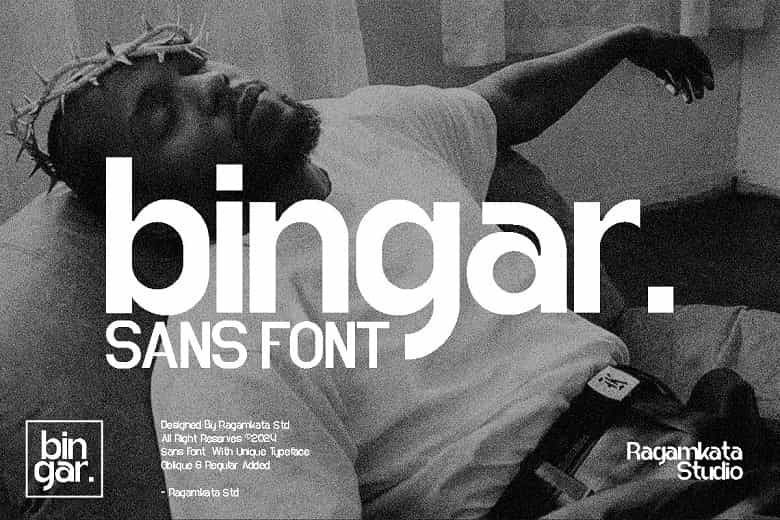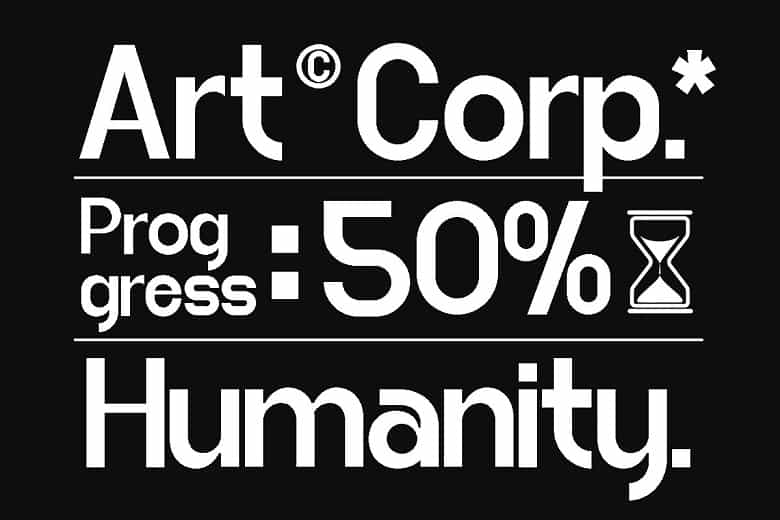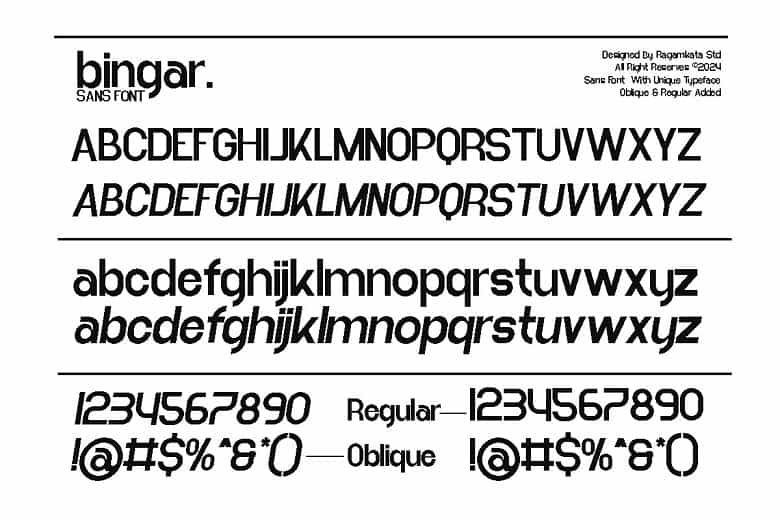
Bingar is a modern sans display font has smooth curves and a visual style that a can represent the charm and elegance of each lettering in your work. This one is also available in both the upper case and the lower case sizes.